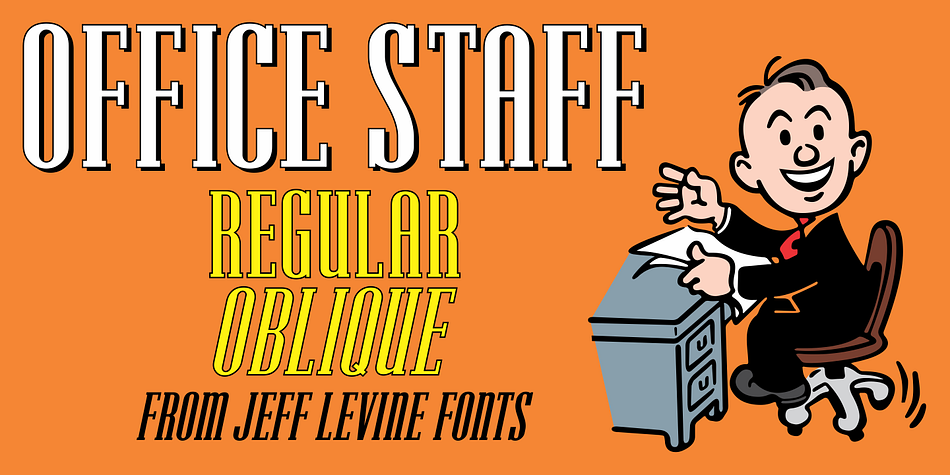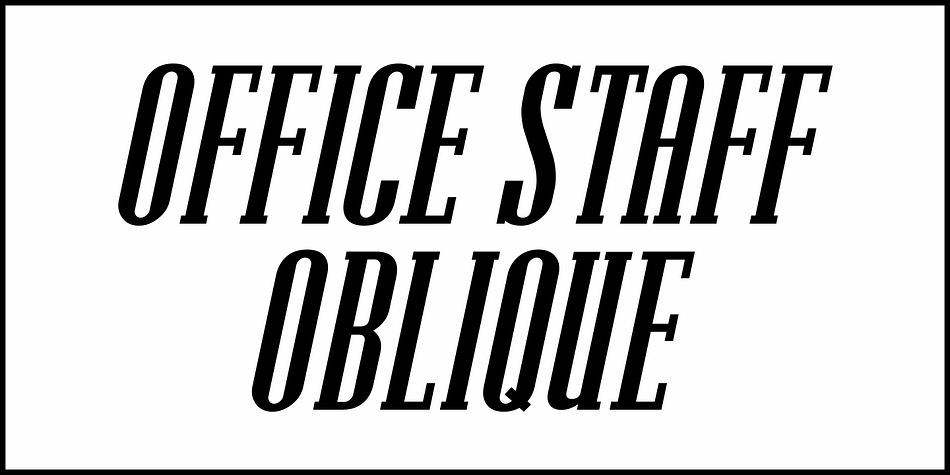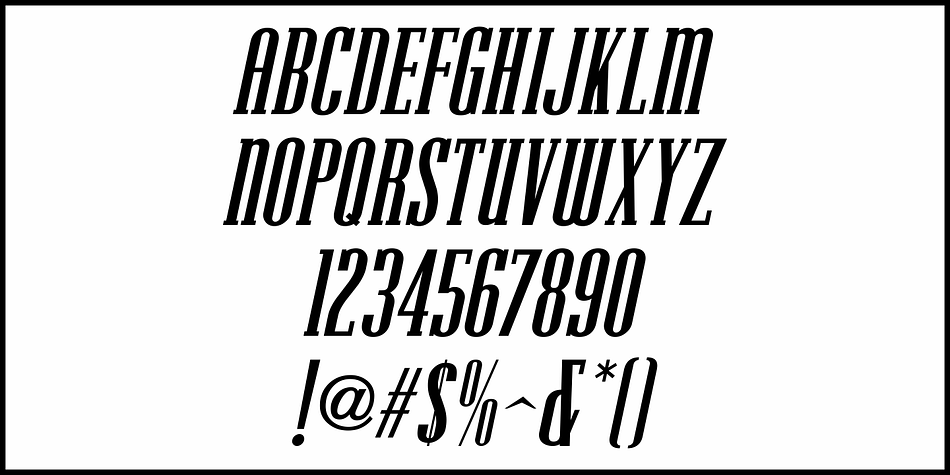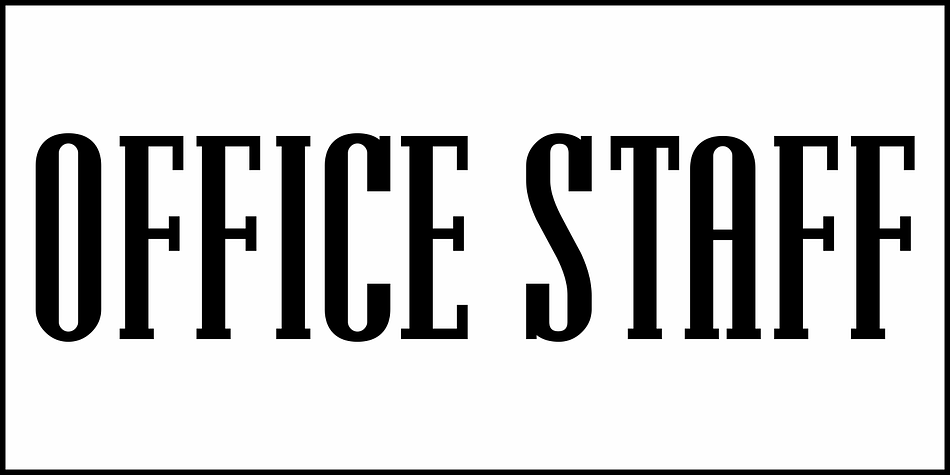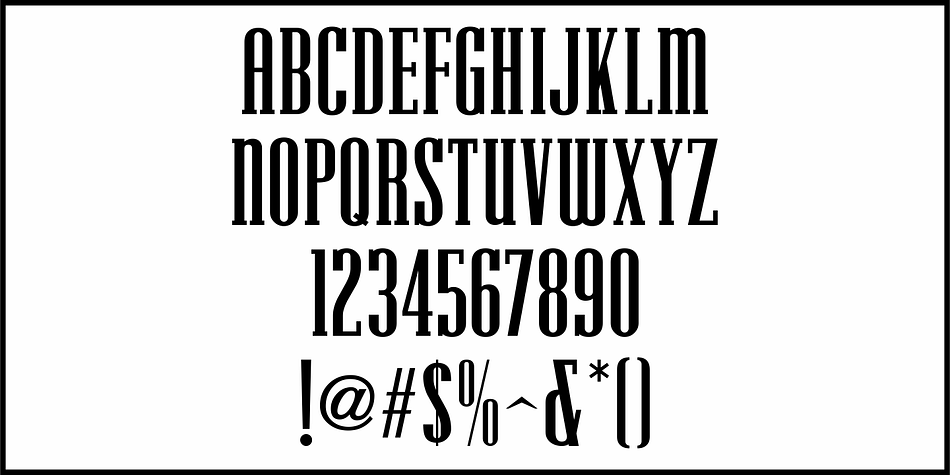
OFFICE STAFF JNL
Designed by Jeff Levine, Office Staff JNL is an art deco and display serif font family. This typeface has two styles and was published by Jeff Levine Fonts.
Office Staff JNL is a version [with serifs added] of Popularity JNL – a condensed Art Deco design based (for the most part) on a popular typeface known in some foundry books as ‘Radiant’ with some reinterpreted characters… and is available in both regular and oblique versions.